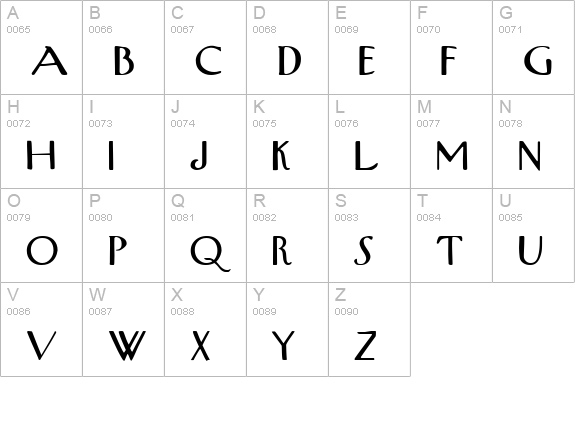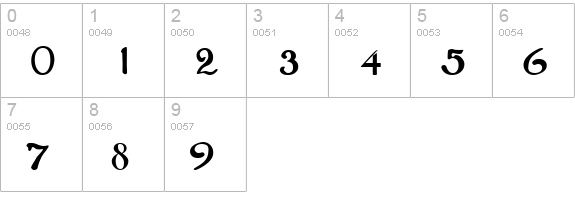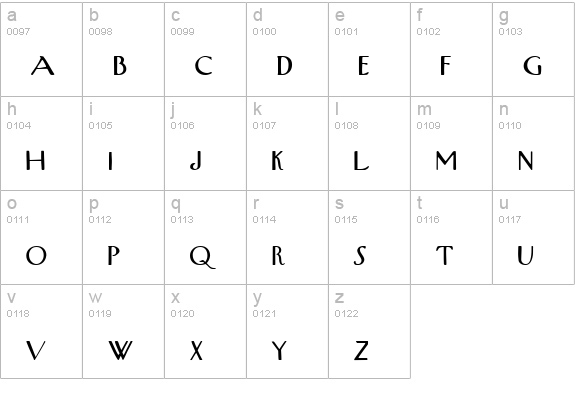
QTWestEnd Regular Font Details
QTWestEnd Regular is the standard, neutral variant in the QTWestEnd typeface family \xE2\x80\x94 well suited to general body text, paragraphs, and standard typographic work.
QTWestEnd Regular is a timeless and elegant font that exudes a classic charm. Its clean and refined lines make it perfect for various design projects, from branding to editorial layouts. With its perfect balance of curves and straight lines, QTWestEnd Regular is both sophisticated and approachable, making it suitable for both professional and creative endeavors. Its versatility allows it to seamlessly adapt to any design concept, whether it be a modern minimalistic look or a traditional and ornate style. One of the standout features of QTWestEnd Regular is its legibility. The carefully crafted letterforms ensure that every character is easily distinguishable, making it a reliable choice for body text or large headings. Its generous spacing and well-proportioned glyphs contribute to its readability, making it a pleasure to read even in longer passages of text. What makes QTWestEnd Regular even more appealing is that it is available for free download at FontsMarket.com. This means that designers and enthusiasts alike can access this stunning font without having to worry about any financial constraints. Its availability in the digital realm allows for quick and convenient integration into various projects, saving both time and resources. Whether you're designing a logo, creating a magazine spread, or working on a website, QTWestEnd Regular is a font that will elevate your design and make a lasting impression. Its timeless beauty and effortless elegance will captivate readers and viewers, making it a valuable asset for any design arsenal. So why wait? Download QTWestEnd Regular for free at FontsMarket.com and start creating stunning and impactful designs today.